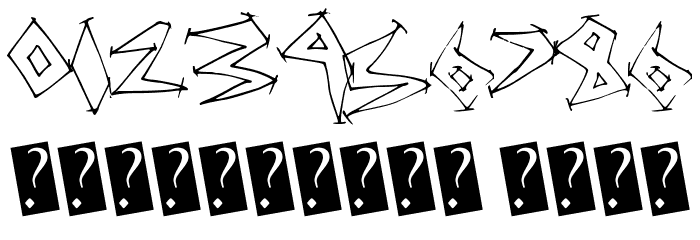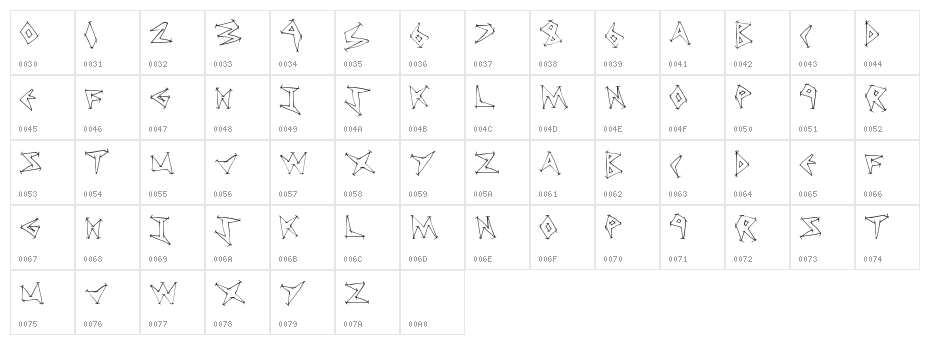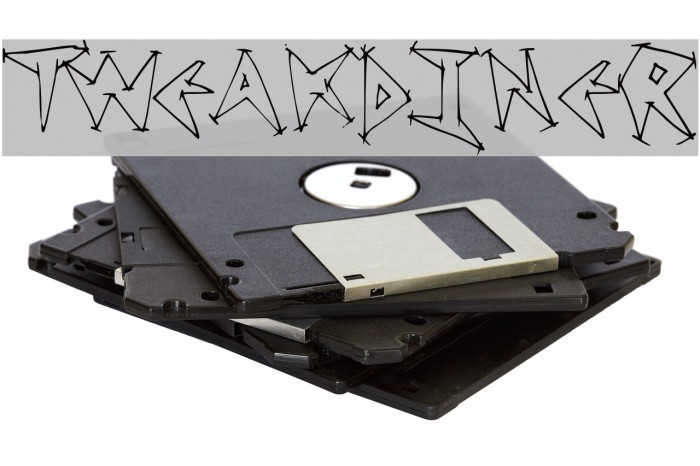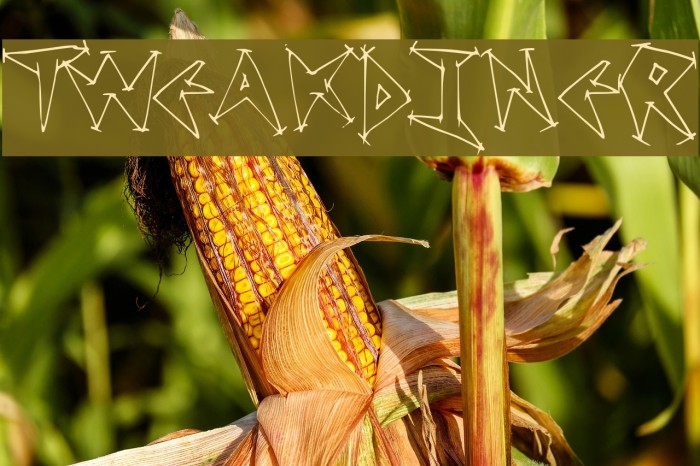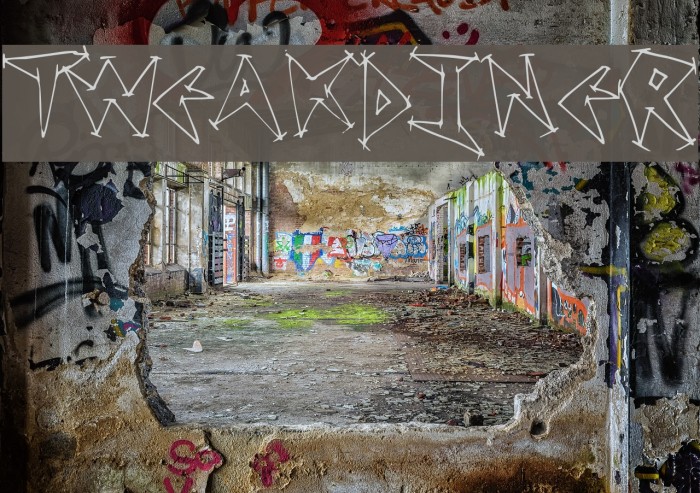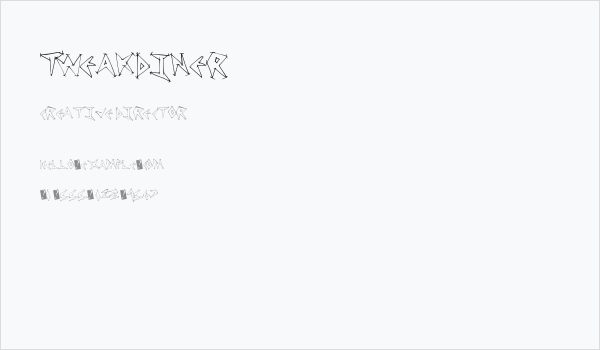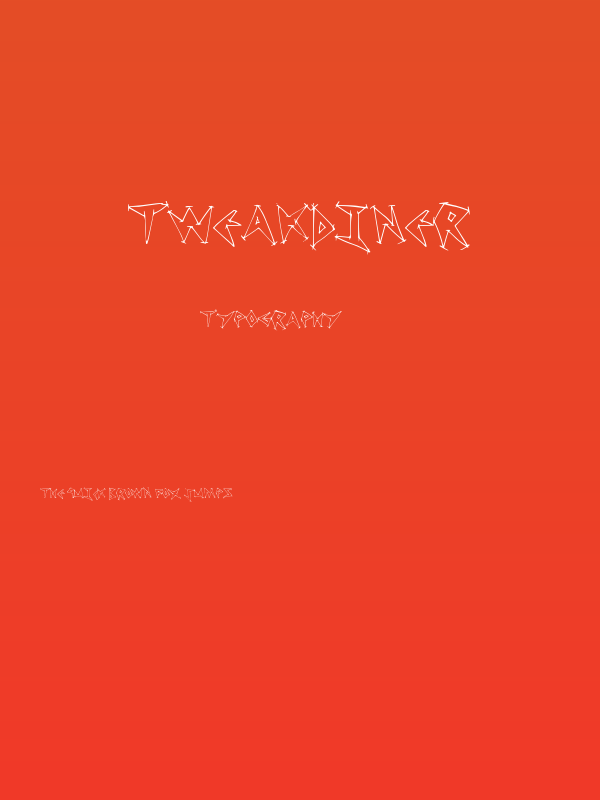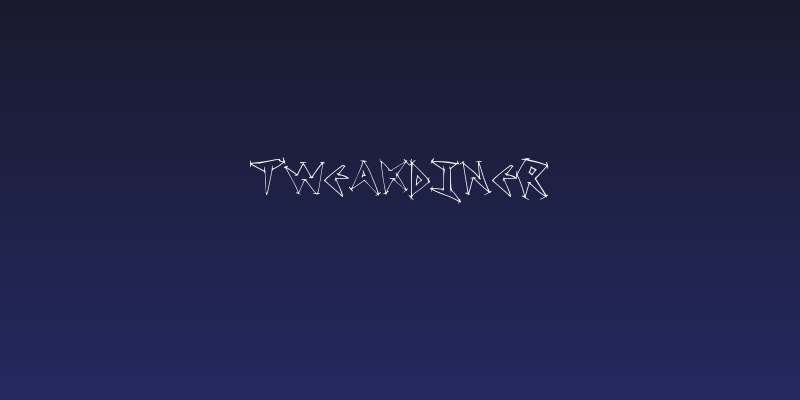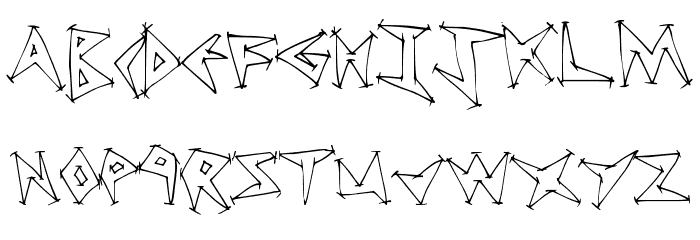
TweakDiner Font
TweakDiner Description
This font features a highly unique and abstract design, characterized by angular and pointed strokes that resemble interconnected arrows or geometric shapes. The letters have a dynamic and edgy appearance, with each character appearing as if it is in motion or part of a complex structure. The uppercase and lowercase letters maintain this consistent style, creating a cohesive yet unconventional look. The numbers follow the same design principles, ensuring uniformity across all characters. Special characters are presented in a bold, block-like format, adding to the font's distinctive aesthetic. This font is ideal for projects that require a modern and artistic touch, offering a striking visual impact.
| Use Case | Logos, Posters, Artistic Projects |
| Proposed Projects | Ideal for album covers, modern art posters, edgy branding, and creative digital media. |